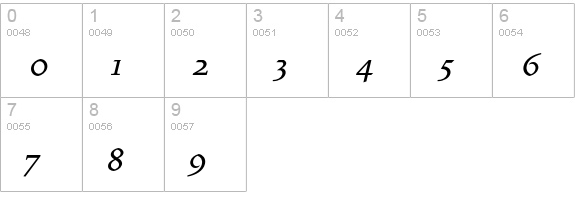
VendettaMediumItalic Font Details
VendettaMediumItalic font is a captivating and versatile typeface that combines elegance and modernity seamlessly. With its sleek and fluid strokes, this font exudes a sense of sophistication and creativity. The italicized version of VendettaMedium brings a touch of dynamism and movement to your designs, making it perfect for adding emphasis or conveying a sense of drama. Designed with attention to detail, VendettaMediumItalic is a true display of craftsmanship. Its slim and graceful letterforms beautifully flow from one character to the next, creating a harmonious balance that is pleasing to the eye. Whether used for headlines, logos, or body text, this font effortlessly elevates any project. What makes VendettaMediumItalic font even more appealing is the fact that it is available for free download at FontsMarket.com. This means that designers and creatives can easily access and utilize this extraordinary font in their works without any financial constraints. Whether you're a professional designer or a hobbyist, having access to high-quality fonts like VendettaMediumItalic can truly enhance your creative endeavors. So, why wait? Discover the beauty and versatility of VendettaMediumItalic font today. Download it for free at FontsMarket.com and unleash your creativity with this stunning typeface.